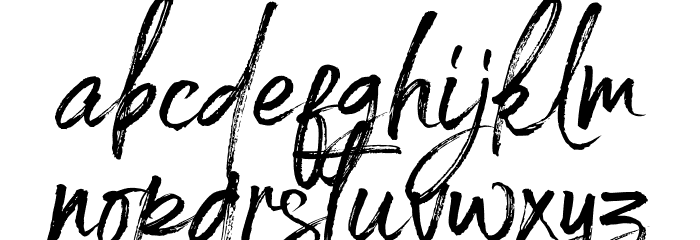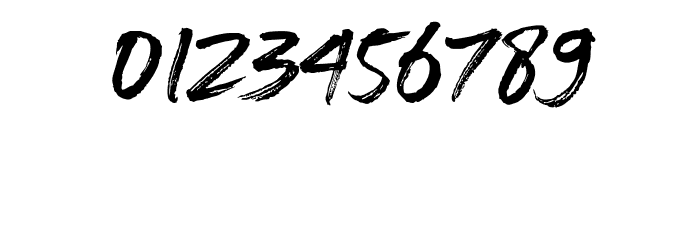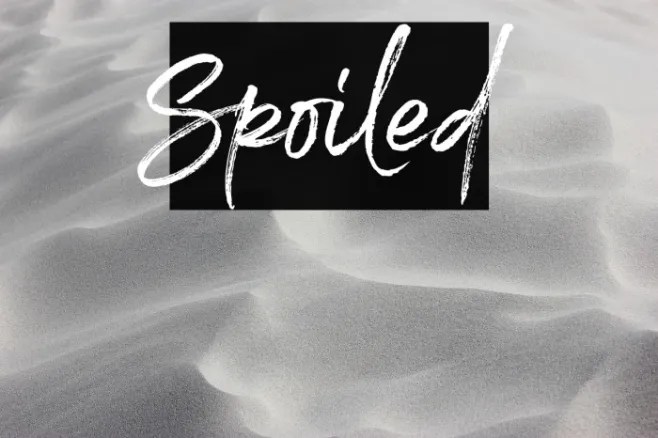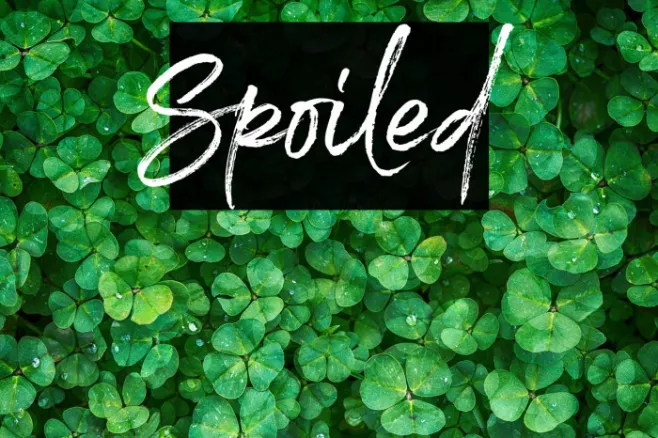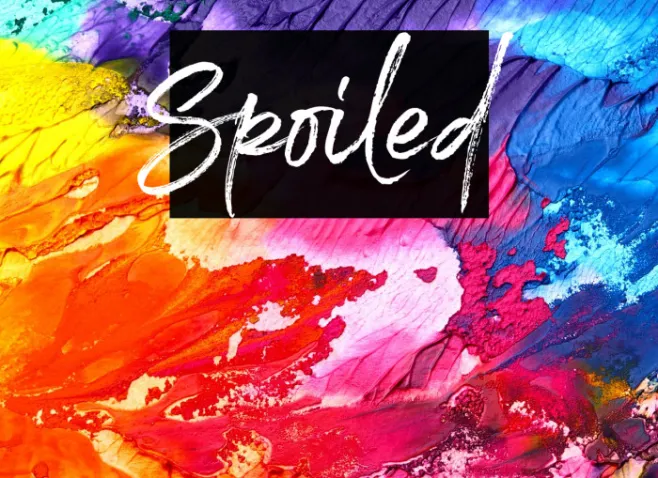
Spoiled Font
This font exudes a raw, expressive energy with its brushstroke style, characterized by bold, sweeping lines and a dynamic, hand-drawn appearance. The letters are irregular and organic, giving a sense of movement and spontaneity. The uppercase and lowercase letters maintain a consistent style, with some characters featuring elongated strokes that add to the font's dramatic flair. The numbers and special characters are equally expressive, maintaining the same brushstroke aesthetic. This font is perfect for projects that require a bold, artistic touch, such as posters, album covers, or creative branding.
A bold, brushstroke font with an expressive, hand-drawn style.
- Font: Spoiled
- Proposed Projects: Ideal for artistic projects like posters, album covers, and creative branding.
- Overall Style: Artistic, Expressive
- Use Case: Headlines, Logos, Artistic projects